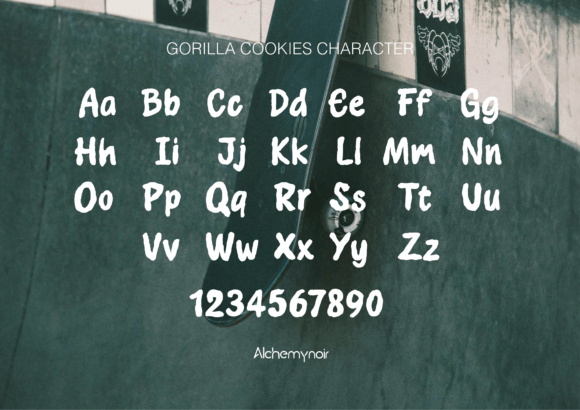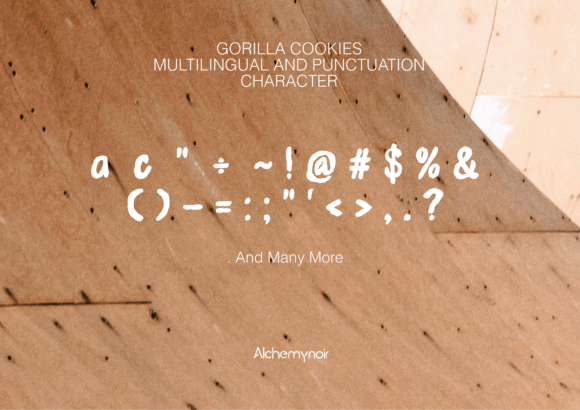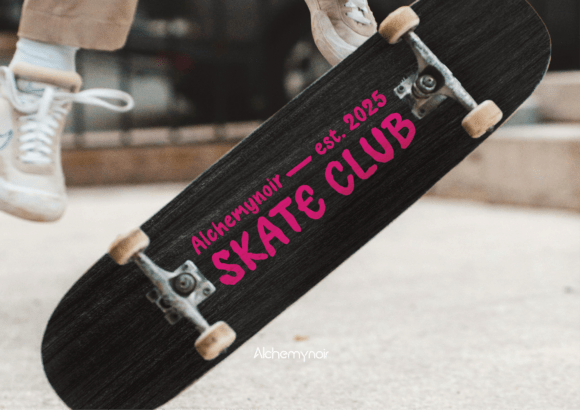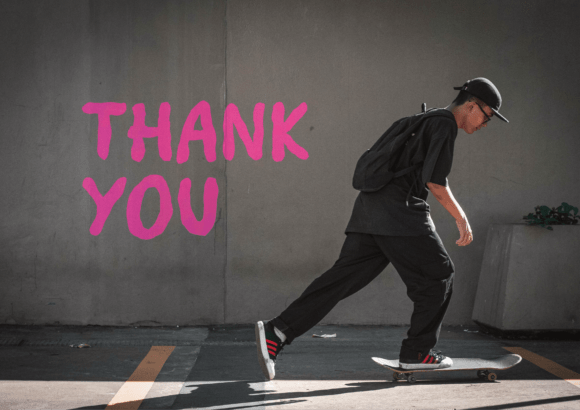
Gorilla Cookies Font: Unleash Your Creativity with a Fun, Casual, and Cool Typeface
Are you a designer or crafter looking for a unique and stylish font to elevate your creative projects? Look no further than the Gorilla Cookies Font! This fun, casual, and cool font is inspired by pop punk music, skateboard culture, and serial cartoons, making it the perfect addition to your design arsenal.
What is Gorilla Cookies Font?
Gorilla Cookies Font is a digital typeface that embodies the spirit of punk and grunge styles, but with a casual and laid-back twist. Its quirky and playful design makes it ideal for a wide range of creative projects, from branding and posters to apparel, merchandise, stickers, and more.
Key Features of Gorilla Cookies Font
- Unique and Stylish Design: Gorilla Cookies Font boasts a distinctive and eye-catching design that’s sure to make your projects stand out from the crowd.
- Punk and Grunge Inspiration: Inspired by the bold and rebellious spirit of punk and grunge cultures, this font is perfect for designers who want to add an edgy touch to their work.
- Casual and Laid-Back Vibe: Despite its punk roots, Gorilla Cookies Font has a relaxed and casual feel that’s perfect for creating friendly and approachable designs.
- Versatile and Adaptable: This font is suitable for a wide range of creative projects, from digital designs to print materials.
Use Cases for Gorilla Cookies Font
Gorilla Cookies Font is an incredibly versatile typeface that can be used in various design projects, including:
- Branding: Create a bold and memorable brand identity with Gorilla Cookies Font, perfect for businesses that want to stand out from the competition.
- Posters and Flyers: Add a punk rock flair to your posters and flyers with this eye-catching font, guaranteed to grab attention.
- Apparel and Merchandise: Design stylish and edgy apparel, stickers, and merchandise with Gorilla Cookies Font, perfect for music festivals, skateboard shops, or streetwear brands.
- Stickers and Decals: Create fun and quirky stickers and decals with this font, ideal for laptops, water bottles, or any other surface that needs a unique touch.
Why Choose Gorilla Cookies Font?
With so many fonts available, why choose Gorilla Cookies Font? Here are just a few reasons:
- Unique Design: Gorilla Cookies Font offers a fresh and distinctive design that’s sure to set your projects apart.
- Easy to Read: Despite its bold and playful design, this font remains easy to read, making it perfect for body text and headlines.
- High-Quality: Gorilla Cookies Font is a high-quality digital typeface, carefully crafted to ensure crisp and clean rendering on any device.
If you’re looking for a fun, casual, and cool font to add a unique touch to your creative projects, look no further than Gorilla Cookies Font. With its punk and grunge inspiration, casual vibe, and versatile design, this typeface is perfect for designers and crafters who want to unleash their creativity and produce eye-catching work.